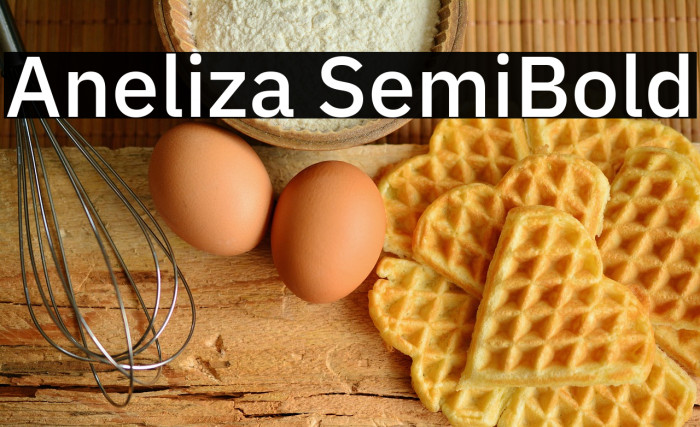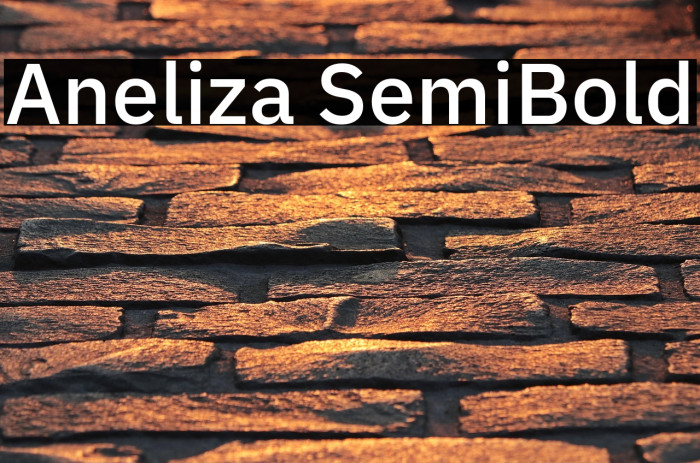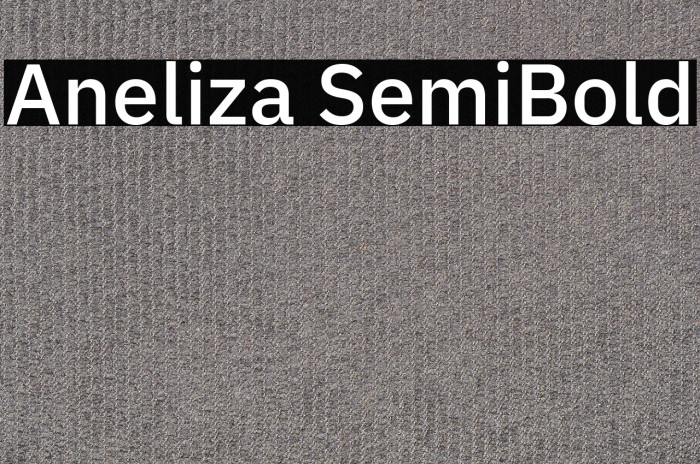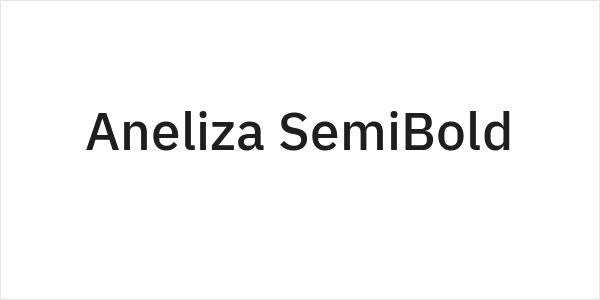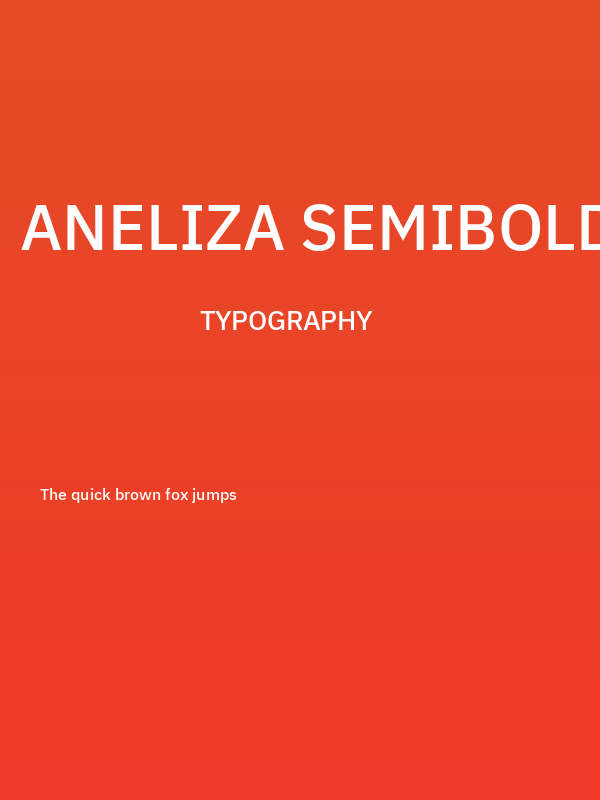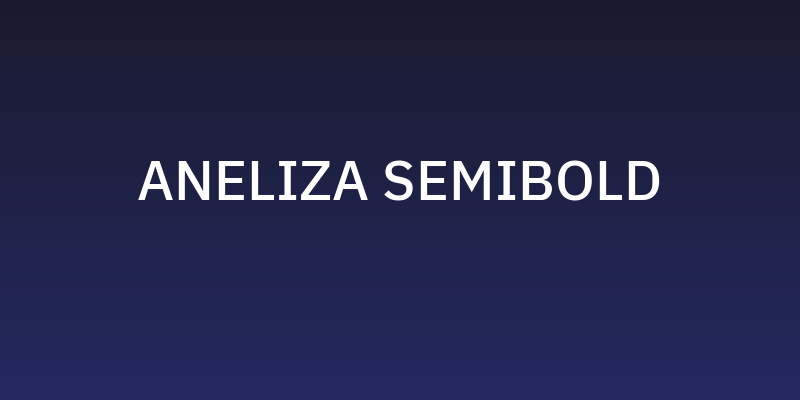
Aneliza SemiBold Font
Aneliza SemiBold Description
This typeface presents a clean and modern aesthetic with a semi-bold weight, offering a balanced and versatile appearance. The characters are well-proportioned, featuring smooth curves and straight lines that enhance readability. The uppercase letters are bold and assertive, while the lowercase letters maintain a friendly and approachable feel. The numerals are clear and distinct, making them suitable for various applications. Special characters are included, providing comprehensive support for diverse text needs. Overall, this font is designed to be both functional and stylish, suitable for a wide range of design projects.
| Proposed Projects | Ideal for branding, advertising, web design, and editorial projects. |